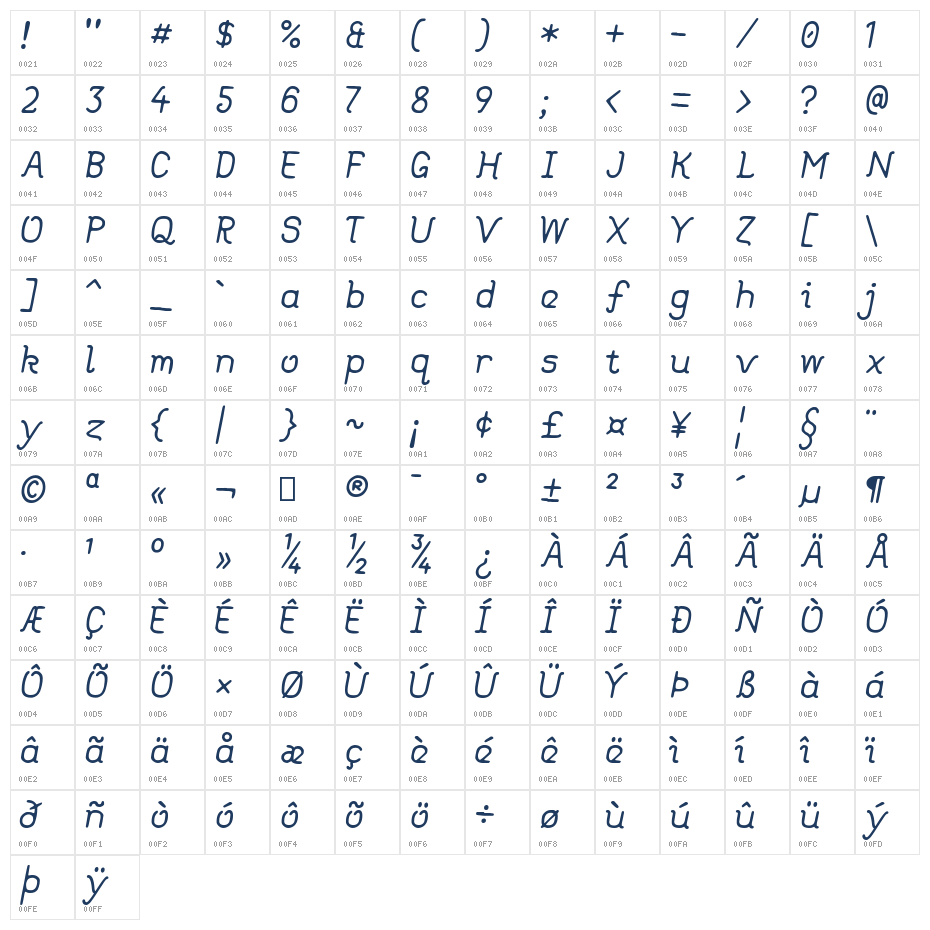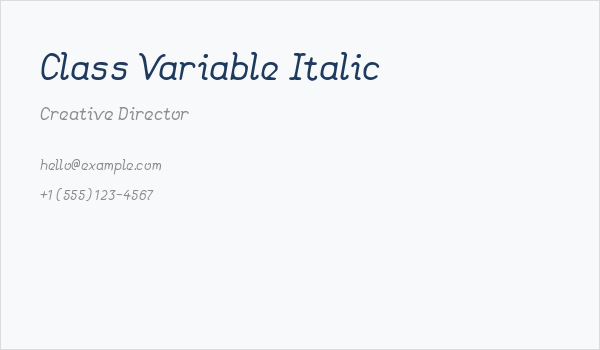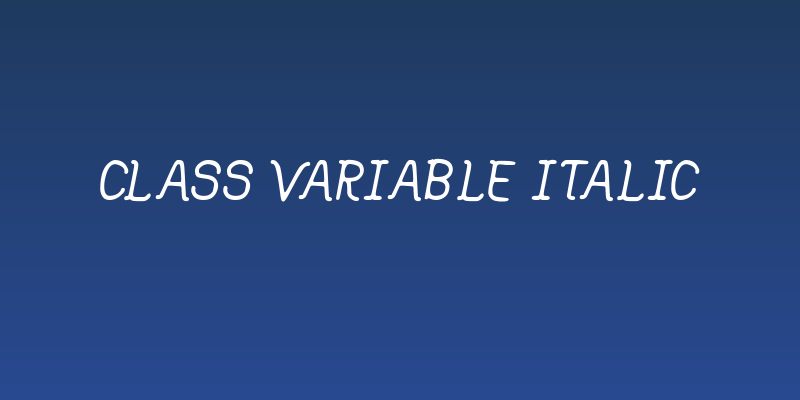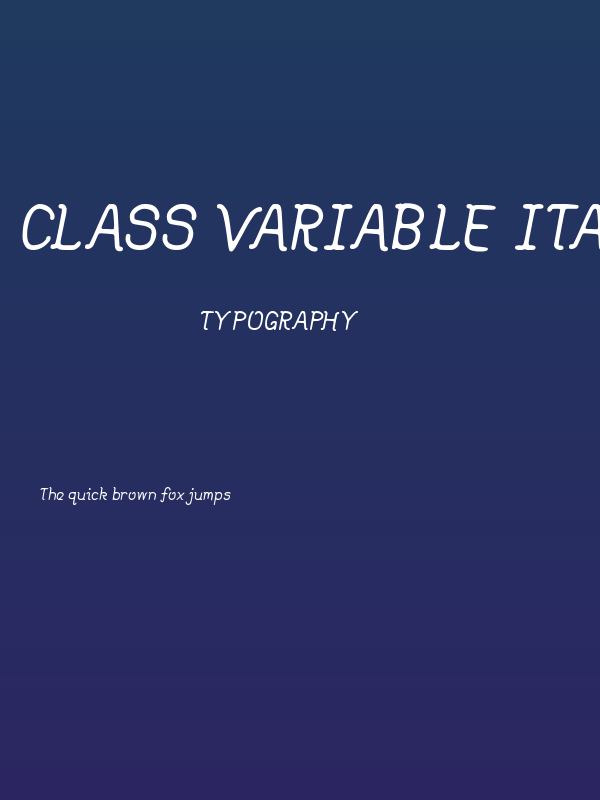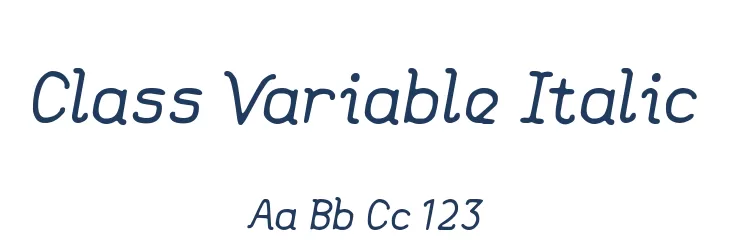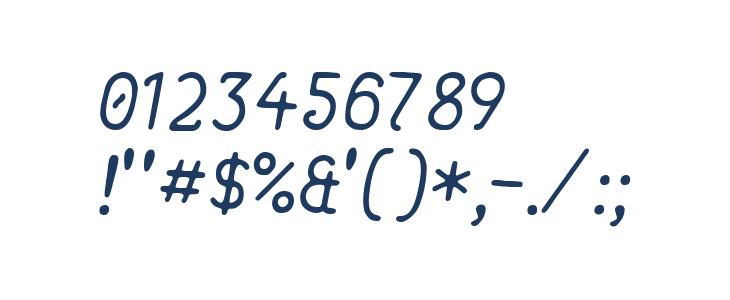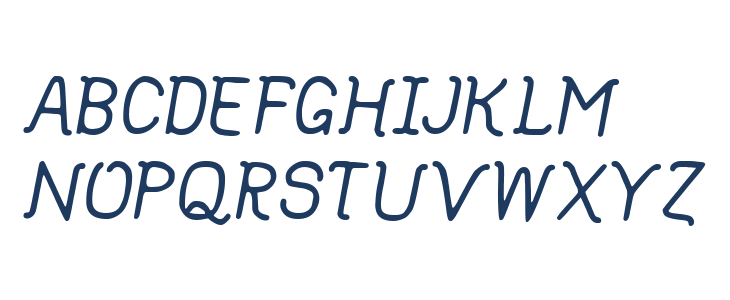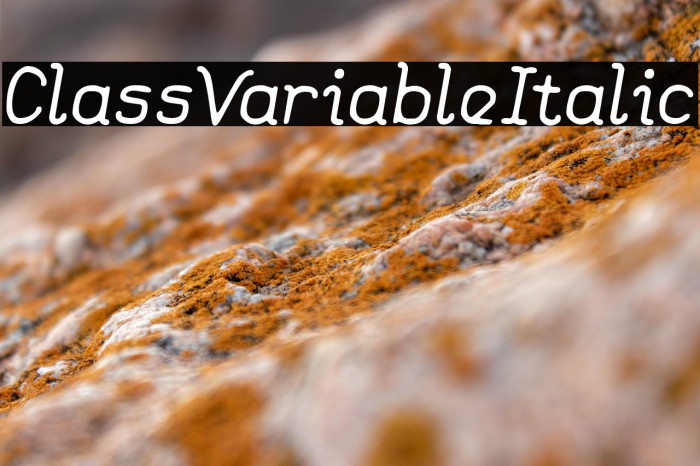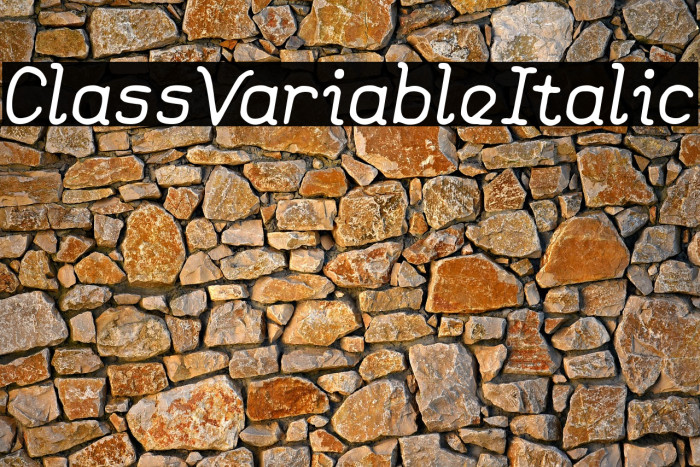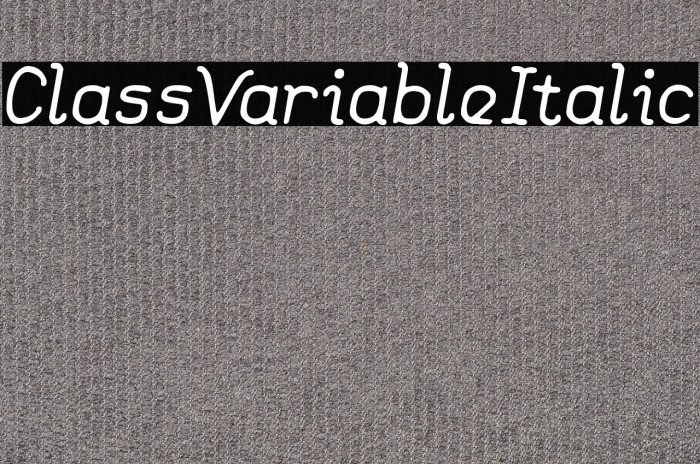
Class Variable Italic Font
Class Variable Italic Description
A casual, handwritten script font with a playful and informal style, featuring slightly slanted characters with smooth curves.
| Use Case | Invitations, Greeting cards, Personal projects, Logos |